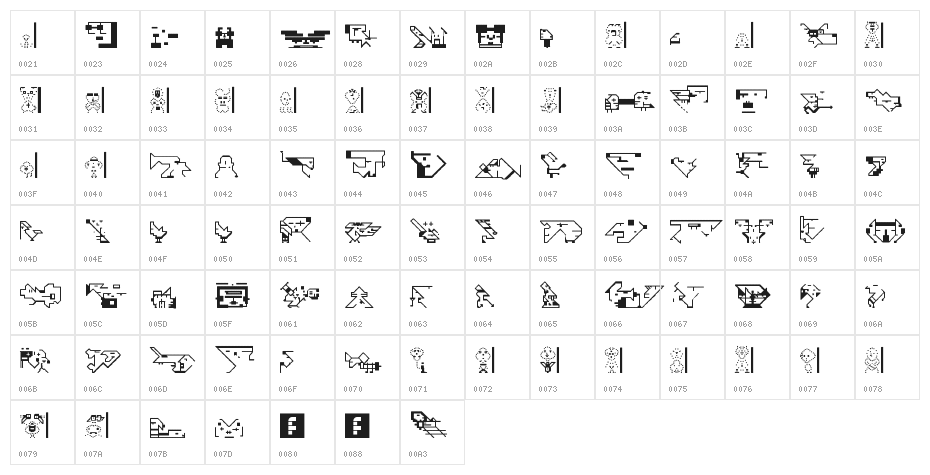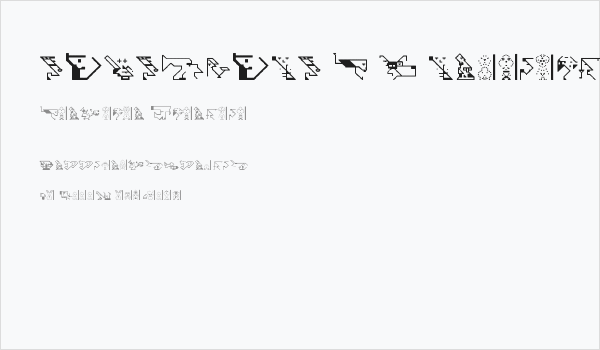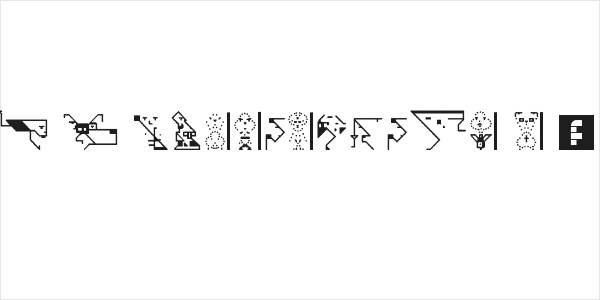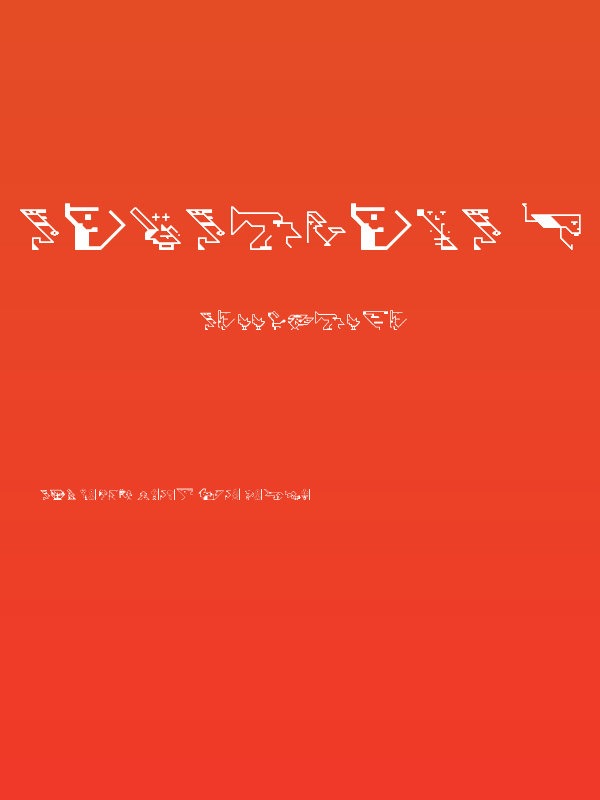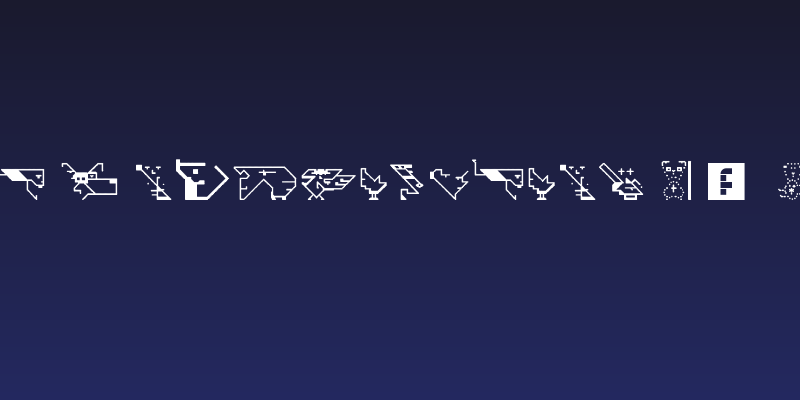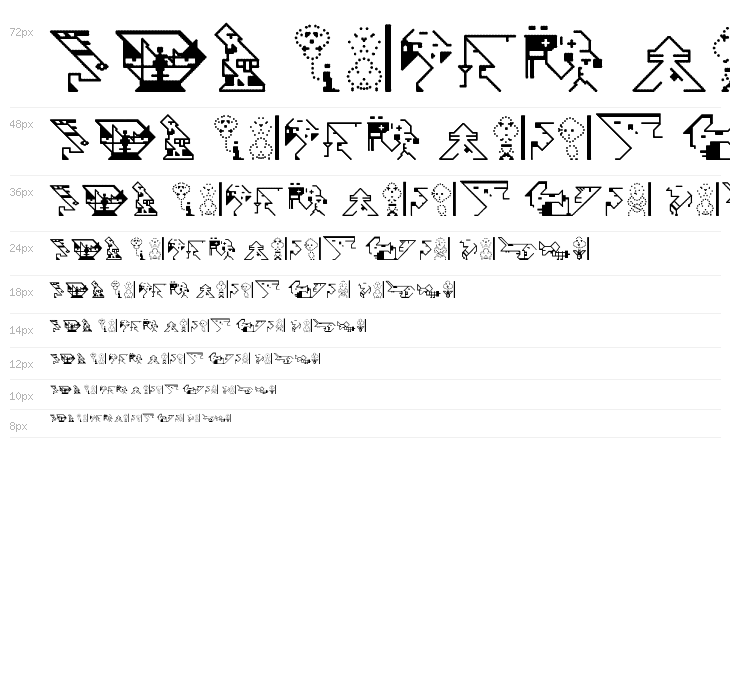
TESTAMENT C / Neuroticons 1 à 90 Regular Font
TESTAMENT C / Neuroticons 1 à 90 Regular Description
This font features an abstract and futuristic design, characterized by intricate geometric shapes and patterns. Each character is uniquely crafted with a combination of sharp angles and pixelated elements, creating a digital and robotic aesthetic. The font's style is highly decorative, making it suitable for creative and experimental projects. Its unconventional appearance challenges traditional readability, offering a visually striking experience. The characters are densely packed with details, resembling a blend of modern art and digital iconography, perfect for projects that require a bold and avant-garde look.
| Overall Style | Futuristic, Abstract |
| Use Case | Logos, Posters, Digital Art |
| Proposed Projects | Ideal for digital art, sci-fi themed projects, video game graphics, and experimental design work. |